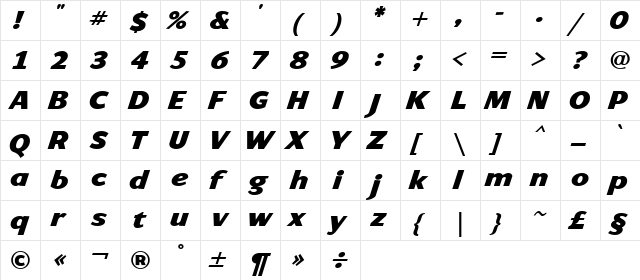
ArtemiusSans Black Italic
| Foundry | Letterhead studio especially for ArtLebedev Group. Created by Yuri Gordon |
Design Context for ArtemiusSans Black Typeface
ArtemiusSans Black is a composed and adaptable typeface that performs quietly and consistently across a wide range of design contexts. The slanted form adds forward momentum and visual energy.
Pro Tip: Try ArtemiusSans Black for annotation and caption copy alongside an upright companion — the contrast in angle creates a dynamic but ordered typographic system.